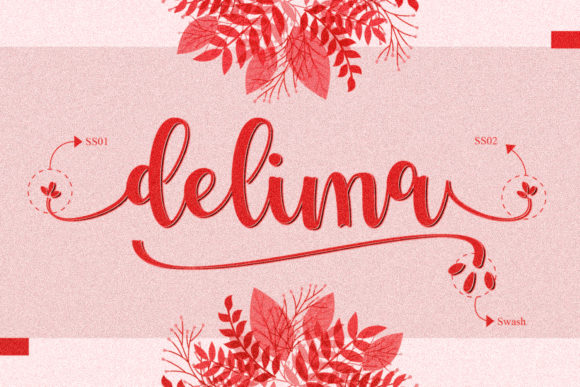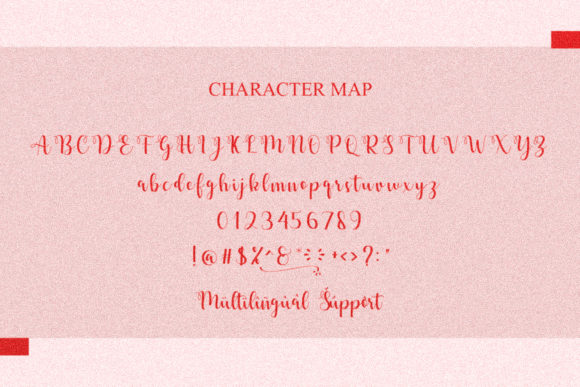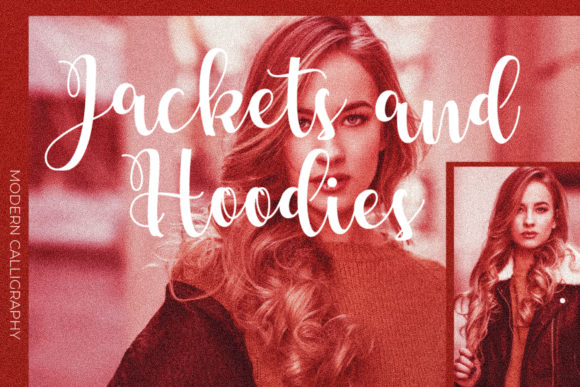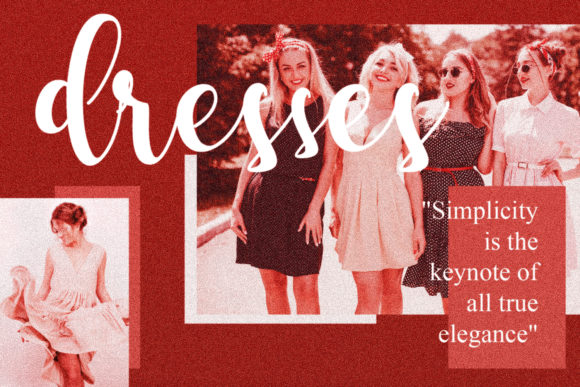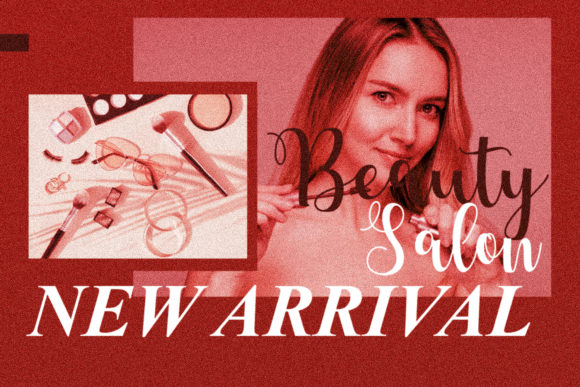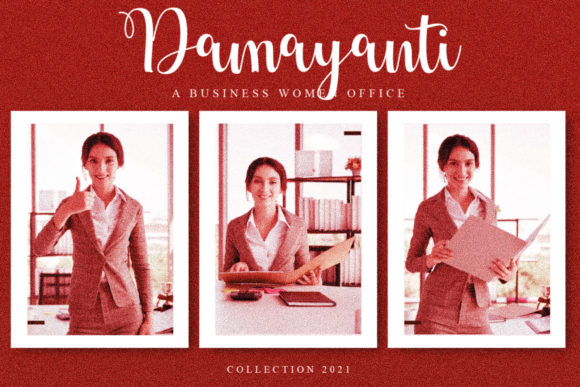
The Delima Font: A Stylish and Romantic Handwritten Delight
I’ll never forget the design moment when I stumbled upon the Delima font. I was working on a project for a client who wanted a stylish and romantic touch, and I was struggling to find the perfect font. That’s when I discovered Delima, and it instantly became my go-to choice. In this article, I’ll share my experience with Delima, its features, and how to make the most of this beautiful font.
An Honest Review of Delima Font
What I Love About Delima ✨
- 💫 Stylish and romantic handwritten design that adds a touch of elegance to any project
- ✅ PUA encoded, making it easy to access all glyphs and swashes
- 🌟 Maintains classy calligraphic influences while feeling contemporary and fresh
- 📝 Perfect for a variety of design projects, from wedding invitations to branding and packaging
While Delima is an amazing font, there are a few things to keep in mind:
- 🤔 Some users may find the font a bit too ornate for certain projects, so it’s essential to consider the design context
The Backstory of Delima Font
Delima was designed with the intention of creating a stylish and romantic handwritten font that would evoke a sense of elegance and sophistication. The designer aimed to craft a font that would be both classic and modern, making it perfect for a wide range of design projects.
| Author | fiqiart |
Q: What is PUA encoding, and how does it benefit Delima font?
PUA (Private Use Area) encoding allows for easy access to glyphs and swashes, making it simple to use and customize the font.
Q: Is Delima font suitable for body text?
While Delima is a beautiful font, it’s better suited for headlines, titles, and short paragraphs. For body text, a more readable font might be a better choice.